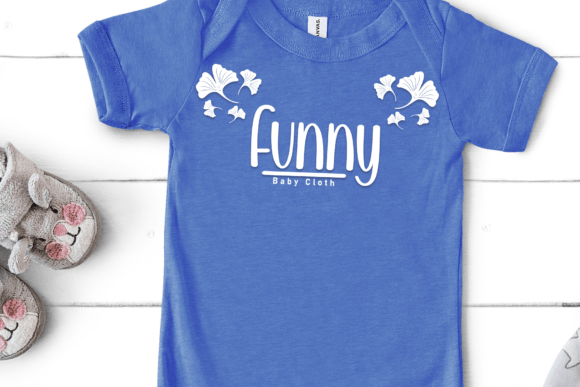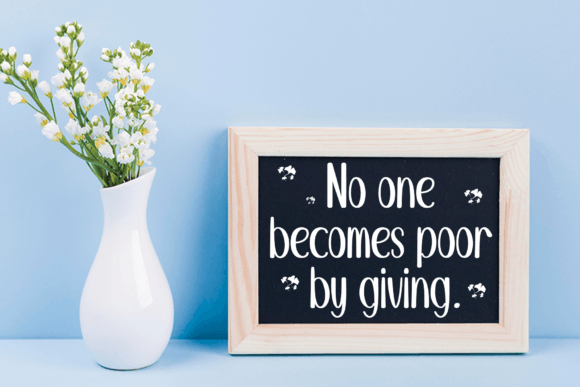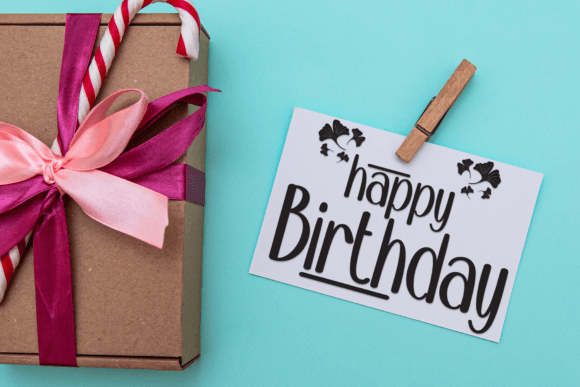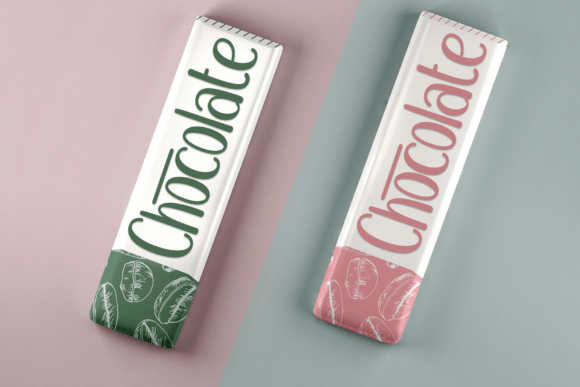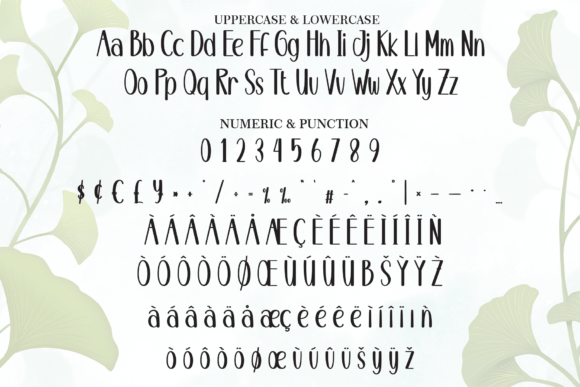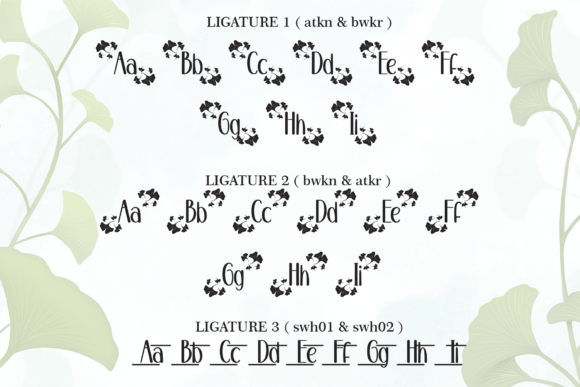
Ginkgo Font: A Nature-Inspired Typeface for Elegant Designs
In the world of typography, fonts play a crucial role in conveying the tone and personality of a brand or design. For those seeking a typeface that embodies the serenity and beauty of nature, Ginkgo Font is an excellent choice. This stunning font is inspired by the majestic ginkgo tree, known for its resilience and unique, fan-shaped leaves. With its organic curves and leaf-like details, Ginkgo Font is perfect for designers and crafters looking to add a touch of elegance and tranquility to their projects.
The Inspiration Behind Ginkgo Font
The ginkgo tree, often referred to as a living fossil, has been a symbol of longevity and harmony in Eastern cultures for centuries. Its distinctive leaves, with their characteristic fan shape and delicate veins, have inspired artists and designers for generations. Ginkgo Font captures the essence of this remarkable tree, translating its natural beauty into a graceful and sophisticated typeface.
Characteristics of Ginkgo Font
Ginkgo Font is characterized by its:
- Organic curves: The font features smooth, flowing curves that evoke the gentle shapes of the ginkgo leaf.
- Leaf-like details: Intricate details, reminiscent of the ginkgo leaf’s veins and edges, add texture and depth to the font.
- Elegant lines: The font’s lines are refined and sophisticated, making it perfect for designs that require a touch of luxury.
Perfect for Botanical Designs and Eco-Friendly Branding
Ginkgo Font is an ideal choice for:
- Botanical designs: The font’s natural, organic feel makes it perfect for projects related to botany, gardening, or floristry.
- Eco-friendly branding: For brands that prioritize sustainability and environmental responsibility, Ginkgo Font conveys a sense of harmony with nature.
- Natural-themed projects: Whether you’re designing for a wellness brand, a outdoor gear company, or a nature-inspired product, Ginkgo Font will help you create a captivating visual identity.
Adding a Touch of Serenity and Sophistication
Ginkgo Font brings a sense of calm and refinement to any design. Its gentle, flowing curves and delicate details create a soothing visual experience, perfect for:
- Packaging design: Add a touch of elegance to your product packaging with Ginkgo Font.
- Logo design: Create a memorable and sophisticated logo with Ginkgo Font.
- Marketing materials: Use Ginkgo Font to create captivating marketing materials, such as brochures, flyers, or social media graphics.
Tips for Using Ginkgo Font Effectively
To get the most out of Ginkgo Font, consider the following tips:
- Pair with complementary fonts: Combine Ginkgo Font with sans-serif fonts for a modern contrast or with script fonts for a more elegant feel.
- Experiment with colors: Earthy tones, such as greens and browns, complement Ginkgo Font’s natural feel, but don’t be afraid to try bold colors for a unique look.
- Pay attention to spacing: Balance your text with generous spacing to create a sense of airiness and emphasize the font’s elegant lines.
Ginkgo Font is a beautiful, nature-inspired typeface that brings a touch of serenity and sophistication to any design. With its organic curves, leaf-like details, and elegant lines, this font is perfect for designers and crafters seeking to create captivating botanical designs, eco-friendly branding, and natural-themed projects. By incorporating Ginkgo Font into your design toolkit, you’ll be able to create stunning visual identities that bloom with a gentle yet captivating presence.